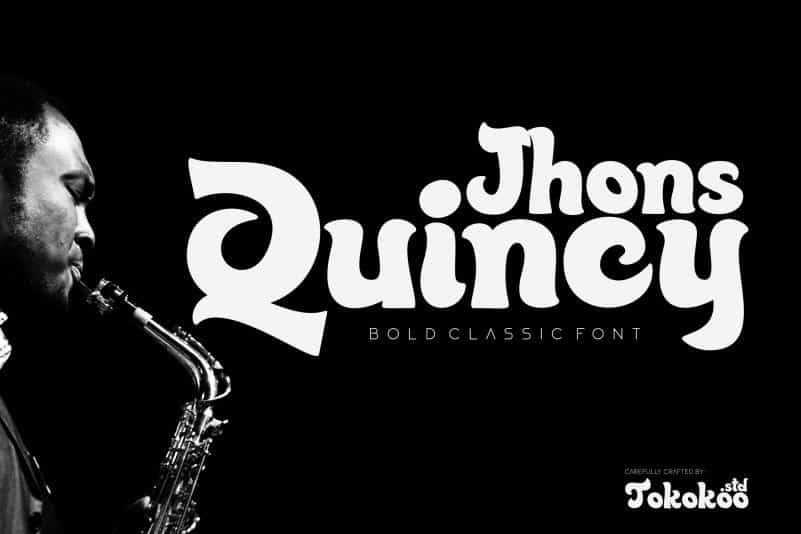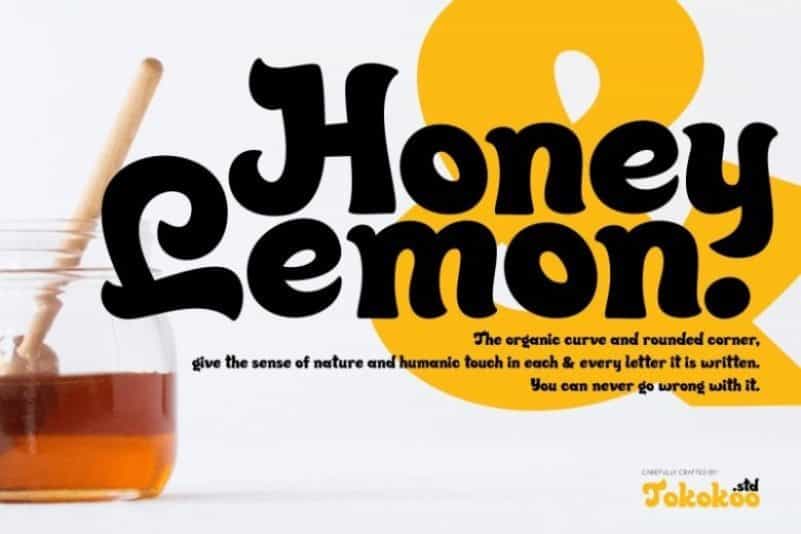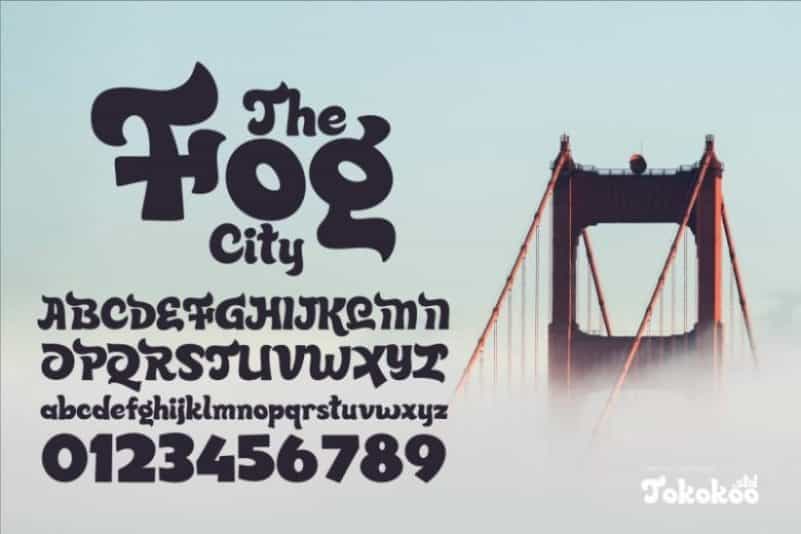
Quincy Jhons is a charming and curly classical script typeface. It’s perfect for the season of Christmas or any other time of the year when you want to add a touch of sparkle and fun.